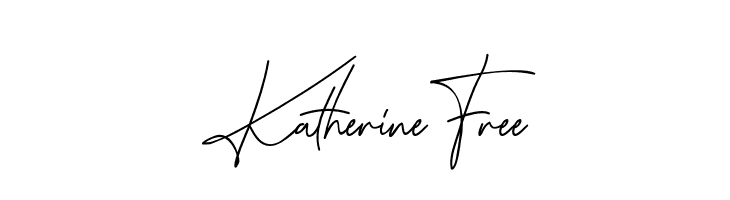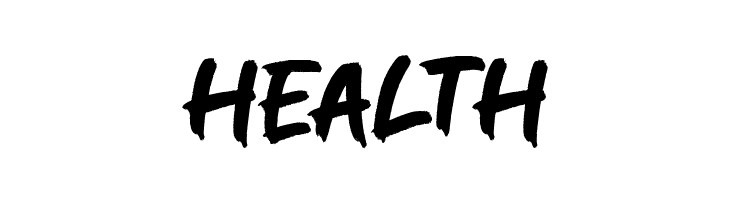
A playful handwritten font with a casual and friendly style.
A playful, handwritten font with a whimsical and dynamic style.
A flowing, cursive handwritten font with elegant loops and dynamic curves.
A playful, rounded font with bold, consistent strokes and a friendly vibe.
A bold, handwritten font with a playful and energetic style.
A playful, casual handwritten font with an organic flow and friendly appearance.
A lively, handwritten font with fluid strokes and medium contrast.
A bold, flowing script font with a handwritten, elegant style.
A distressed, textured font with a rugged, vintage aesthetic.
A playful, handwritten font with rounded, consistent strokes and a casual feel.